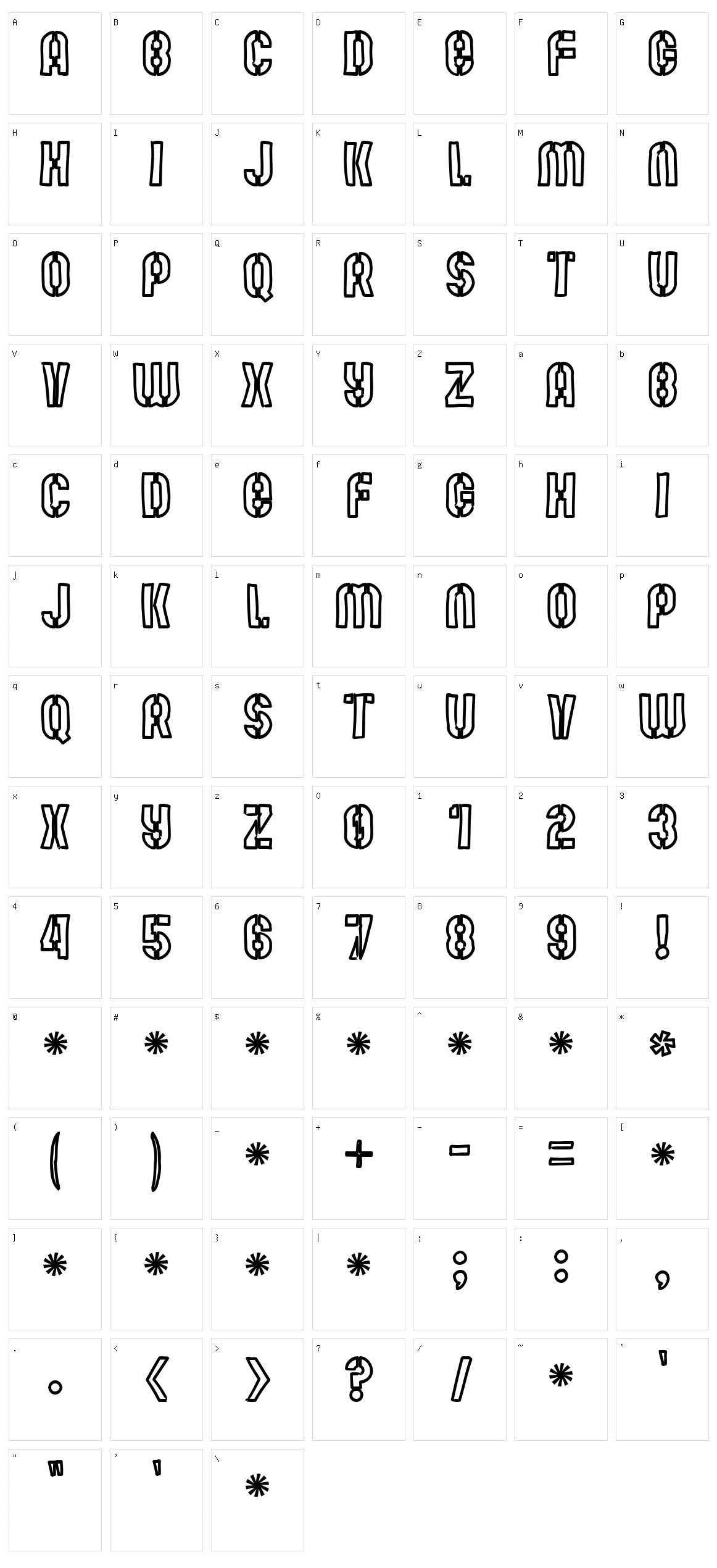
The free font Mute Fruit is carefully designed by Pizzadude, showcasing a thoughtful balance of creativity and usability and falls under the Stencil font style. When you download the ZIP file, it contains only 164.26 KB of font files, making it lightweight and quick to download. Please review the license details below to understand permitted usage and distribution rights. If license information is not available, we recommend using this font for personal projects only or contacting the author directly for commercial usage permissions.